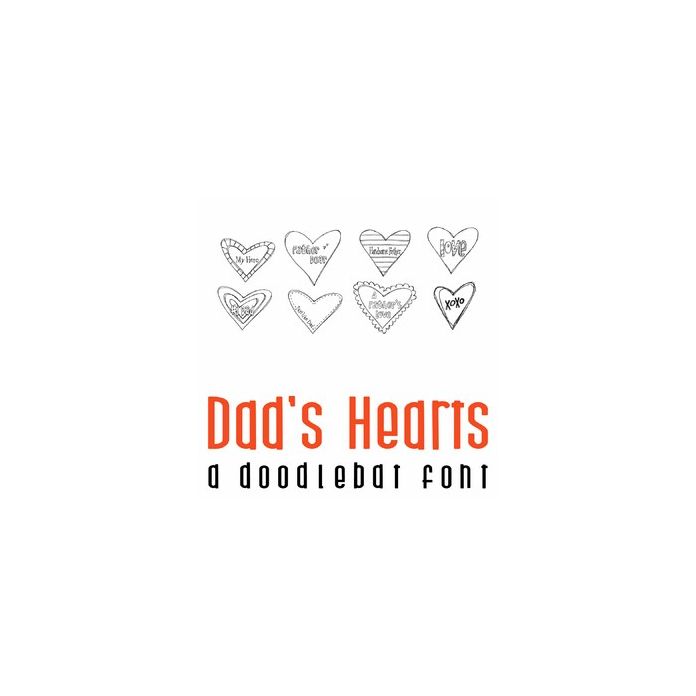
Dad's Hearts Doodlebat Font
This fun doodlebat font features 26 pixel game icons. Perfect for cards, gifts, decor, crafts, scrap book pages, planner stickers and more!